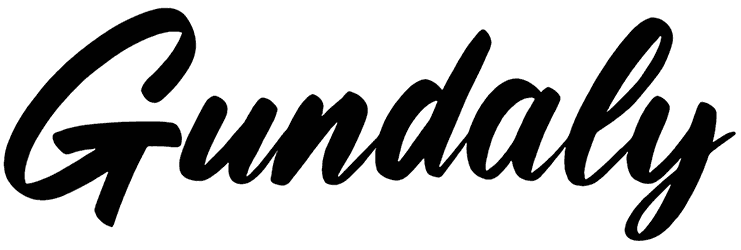
Gundaly Font
Gundaly is a bold, slightly italic handwriting font, especially for adding an organic and playful touch to your design. This adventure font has an eye-catching cursive style but may be illegible in long text. Because of its decorative shape, you can use it in various projects and impress readers. It’s also perfect for gift ideas, lettering, printing, product packaging, and invitations.